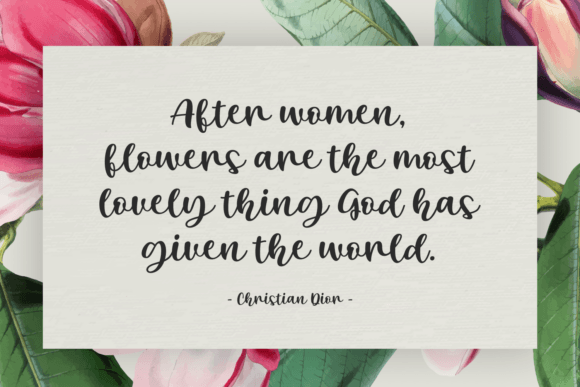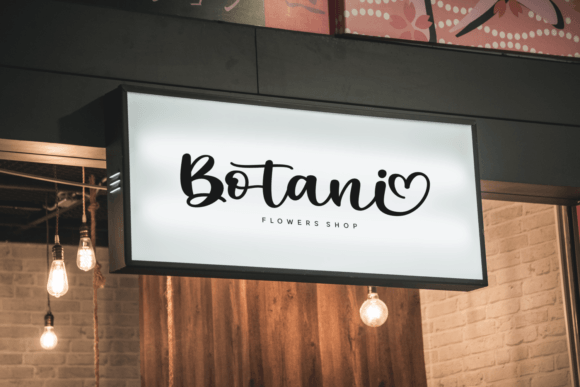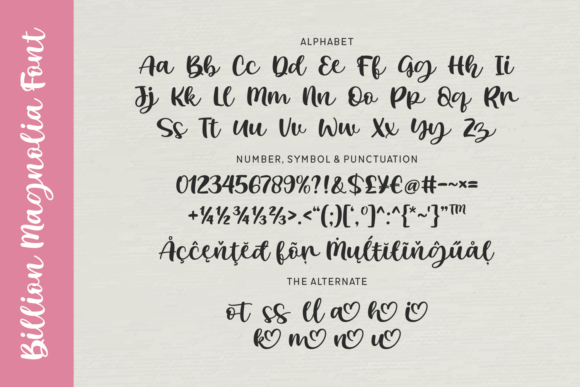
The Perfect Script: Billion Magnolia Font
Have you ever sat down with a blank sheet of paper, a cup of coffee, and a dream to create something truly special? For many of us, this moment is when the magic happens – a spark of creativity that sets off a chain reaction of inspiration. For designers, this feeling is what drives us to push the boundaries of beauty and functionality. And that’s exactly what the Billion Magnolia Font does – it brings elegance and sophistication to any project, making it a go-to choice for designers looking to add a touch of class.
With its smooth, flowing letters, the Billion Magnolia Font is perfect for invitations, greeting cards, and branding projects. Its friendly feel makes it easy to read, while still looking fancy – a perfect balance for designers who want to create something beautiful without sacrificing readability. Whether you’re working on a personal or professional project, the Billion Magnolia Font is a valuable asset to have in your design toolkit.
Billion Magnolia Font Key Features
- Font Family: Billion Magnolia is a unique and elegant script font.
- Unique Characteristics: Features a mix of classic and modern elements, giving it a distinctive look.
- Font Style: The font has both regular and bold styles, offering flexibility in design applications.
Billion Magnolia Font Review
I’ve had the chance to work with Billion Magnolia Font, and here’s my honest take on it. ✨ This font is a great addition to any design project that needs a touch of elegance and sophistication. Its unique blend of modern and traditional elements makes it perfect for various applications, from branding to editorial content.
- ✨ Unique character set: Billion Magnolia Font offers a wide range of characters, including ligatures and swashes, which can add a personal touch to your designs.
- ✨ Easy to read: Billion Magnolia Font has a clear and legible design, making it perfect for body text and other content that requires easy reading.
- ⚠️ Limited language support: Billion Magnolia Font may not support all languages, which can be a limitation for designers working on international projects.
- ⚠️ Not ideal for small text: While the font is great for body text, it may not be the best choice for small text sizes, as the details can get lost.
Overall, Billion Magnolia Font is a great addition to any designer’s toolkit. While it has its limitations, its unique character set, high-quality rendering, and easy readability make it a great choice for various design projects.
Tips for Getting the Most Out of the Billion Magnolia Font
Here are some tips to help you get the most out of the Billion Magnolia font:
- Use it for titles and headings to add a touch of elegance.
- Pair it with a sans-serif font for a clean and modern look.
The Billion Magnolia font is perfect for:
- Wedding invitations and stationery. Alternatives to Billion Magnolia Font